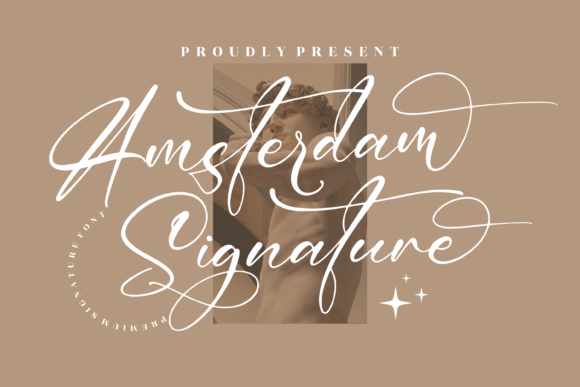
The Amsterdam Signature Font: A Designer’s Dream Come True
I’ll never forget the time I was working on a branding project for a new coffee shop, and I just couldn’t find the perfect font to capture the essence of their quirky, artisanal vibe. The client was specific about wanting a script font that exuded warmth and sophistication, but everything I tried seemed either too bland or too over-the-top. That’s when I stumbled upon the Amsterdam Signature font, and let me tell you, it was love at first sight! 💕
- ✨ Elegant and refined, yet approachable and friendly
- ✅ Perfect for a wide range of projects, from logos and branding to homeware designs and product packaging
- 💫 Beautifully crafted with attention to detail, making it perfect for high-end designs
- 🎨 Highly versatile, with plenty of OpenType features and glyphs to play with
While Amsterdam Signature is an amazing font, there are a few things to keep in mind. For example:
- 🤔 It can be a bit overused, so make sure to pair it with other design elements to keep it fresh
- ⚠️ Some of the more intricate glyphs might not display properly on smaller font sizes or certain devices
While Amsterdam Signature is a unique font, there are some similar alternatives you might want to consider. Here are a few:
- Carolyna Pro: A beautiful, elegant script font with a similar feel to Amsterdam Signature. Use it for high-end branding and packaging designs.
- Alex Brush: A whimsical, hand-painted script font that’s perfect for more creative and playful projects.
- Great Vibes: A modern, stylish script font that’s great for designs that need a bit of edge.
- Lobster: A classic, luxurious script font that’s perfect for high-end designs and special events.
The Story Behind Amsterdam Signature
Amsterdam Signature was designed by a talented type designer who’s passionate about creating beautiful, functional fonts. Inspired by the city’s rich history and cultural heritage, they set out to create a font that would capture the essence of Amsterdam’s unique blend of old and new. The result is a font that’s both elegant and approachable, perfect for a wide range of design projects.
Q: Is Amsterdam Signature suitable for body text?
A: While Amsterdam Signature is a beautiful font, it’s primarily designed for headlines and titles. For body text, you might want to choose a font that’s more readable and legible.